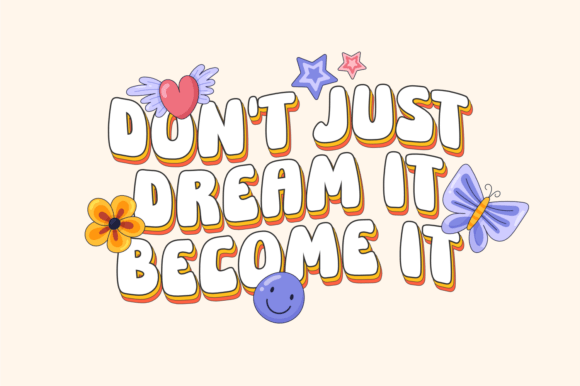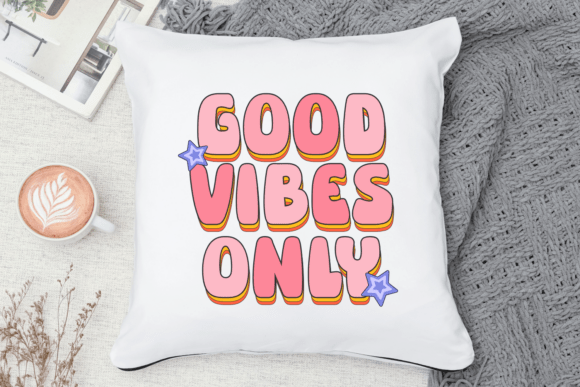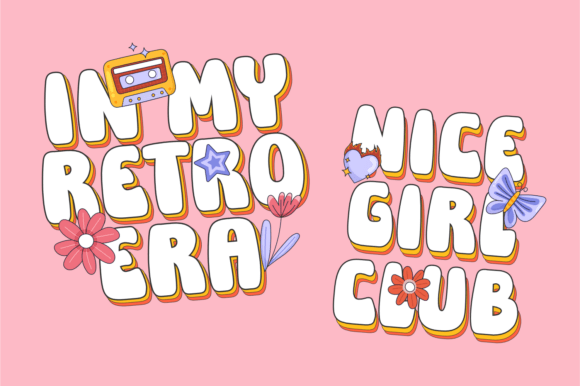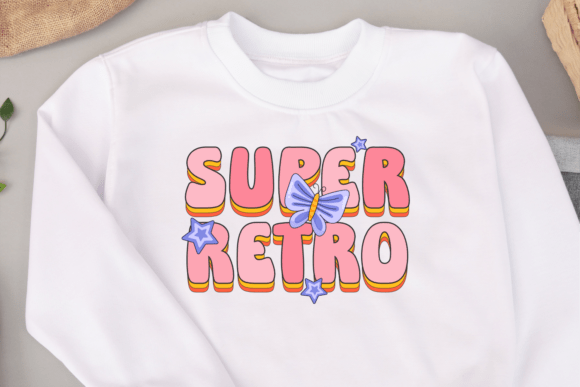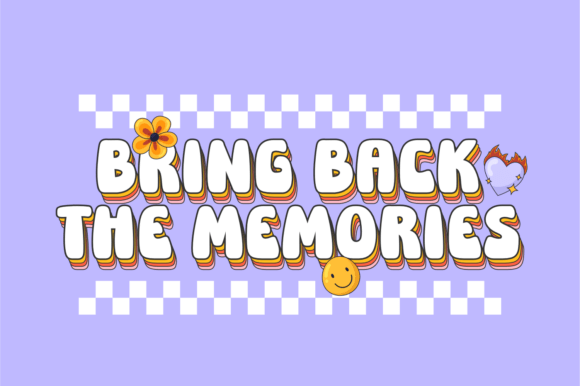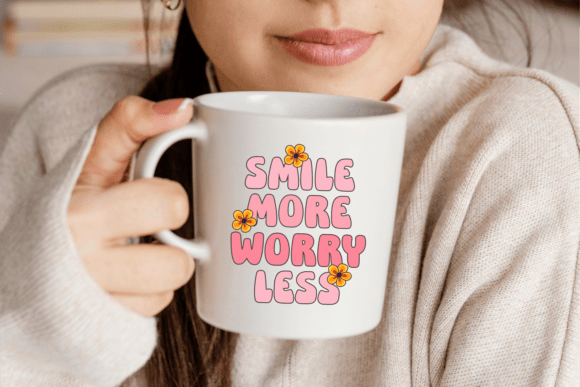
Dreaming Alphabet Font: A Groovy Retro-Inspired Display Font
Are you looking for a font that embodies the free-spirited and playful vibe of the 1960s and 1970s? Look no further than the Dreaming Alphabet font. This retro-inspired display font is perfect for designers and crafters who want to add a touch of whimsy and nostalgia to their projects.
The Inspiration Behind Dreaming Alphabet
Dreaming Alphabet is a font that pays homage to the flower power era and the psychedelic movement. Its letterforms are reminiscent of the iconic typography of the time, with thick and thin strokes that are uneven, creating an organic and handcrafted feel. The font’s design is inspired by the artistic expressions of the 1960s and 1970s, when creativity and self-expression were at their peak.
Key Features of Dreaming Alphabet Font
- Retro-inspired design: Dreaming Alphabet font is a throwback to the groovy and hippie era of the 1960s and 1970s.
- Whimsical letterforms: The font’s letterforms are playful and carefree, perfect for designs that want to evoke a sense of nostalgia and fun.
- Uneven strokes: The thick and thin strokes of the font are uneven, creating a handcrafted and organic feel.
- Display font: Dreaming Alphabet is a display font, perfect for headlines, titles, and other attention-grabbing elements.
Perfect for Playful and Creative Projects
Dreaming Alphabet font is perfect for designers and crafters who want to add a playful and carefree spirit to their projects. Whether you’re working on a branding project, a packaging design, or a digital project, this font is sure to bring a smile to your audience’s face. Here are some project ideas where Dreaming Alphabet font would shine:
- Branding and logos: Use Dreaming Alphabet font to create a fun and playful brand identity.
- Posters and flyers: Create eye-catching posters and flyers with Dreaming Alphabet font.
- Packaging design: Add a touch of whimsy to your packaging design with this groovy font.
- Digital projects: Use Dreaming Alphabet font in your digital projects, such as social media graphics, website headers, and more.
Tips for Using Dreaming Alphabet Font
Here are some tips for using Dreaming Alphabet font effectively:
- Use it sparingly: Dreaming Alphabet font is a display font, so use it sparingly to make a big impact.
- Pair it with a simple font: Pair Dreaming Alphabet font with a simple font to create contrast and visual interest.
- Experiment with colors: Have fun with colors and try out different combinations to match your brand’s personality.
Dreaming Alphabet font is a unique and playful font that’s perfect for designers and crafters who want to add a touch of nostalgia and whimsy to their projects. With its retro-inspired design, whimsical letterforms, and uneven strokes, this font is sure to bring a carefree spirit to your designs. So why not give it a try and see how it can elevate your projects?